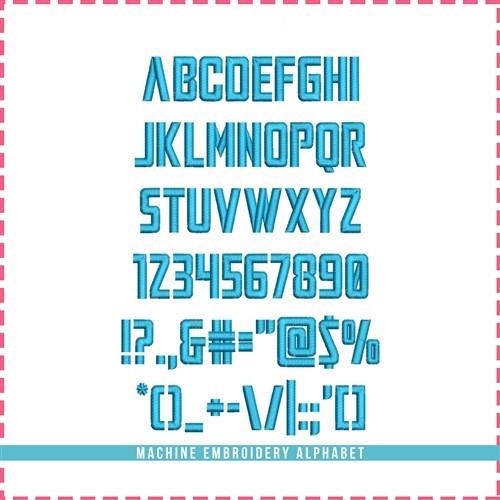
Mandalore Font Embroidery Font - Classic Block Alphabet - 15 Sizes Included - BX font by Maya Kreations and other embroidery fonts available at EmbroideryDesigns.com.
Maya Kreations is happy to present Mandalore Font Embroidery Font - Classic Block Alphabet - 15 Sizes Included - BX font machine embroidery font which has Classic block machine embroidery font with bold geometric letters in red and blue, ideal for vibrant designs on jackets and bags. Available in BX font and Embrilliance formats, offering 15 sizes for versatile projects. included. If you would like to view more embroidery fonts and alphabets please search our embroidery fonts page.